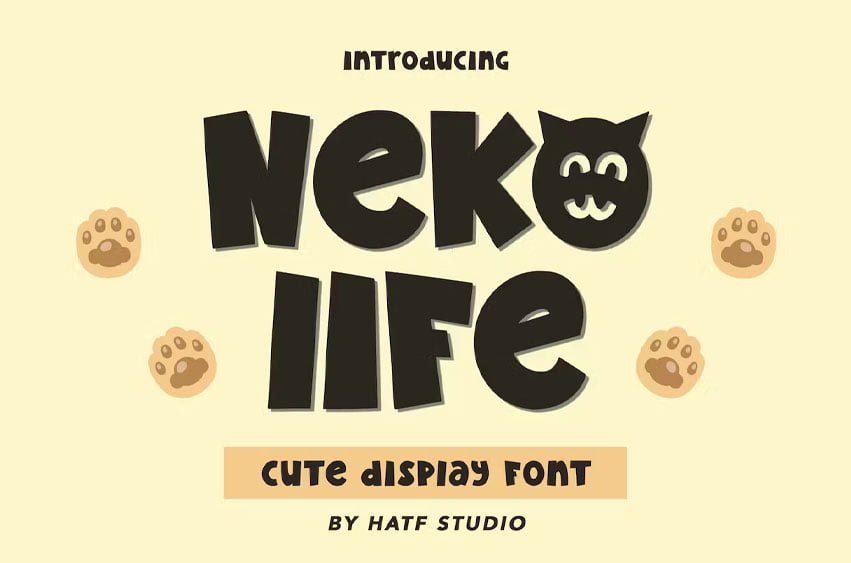
Neko Life Font Is a cute display font with distinctive handwritten characters perfect for branding projects, logos, wedding designs, media posts, advertisements, product packaging, product designs, labels, photography, watermarks, invitations, stationery, and any project who need handwritten dishes.